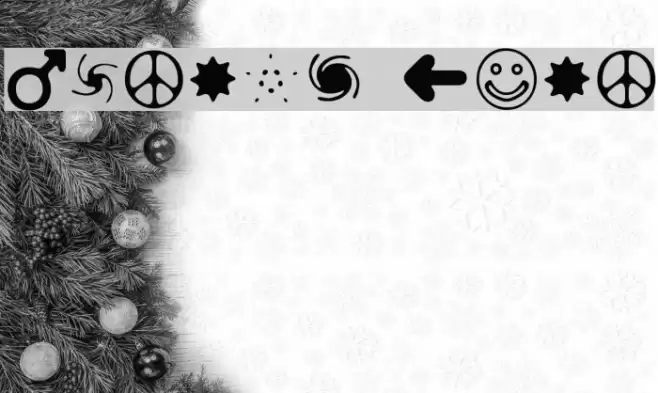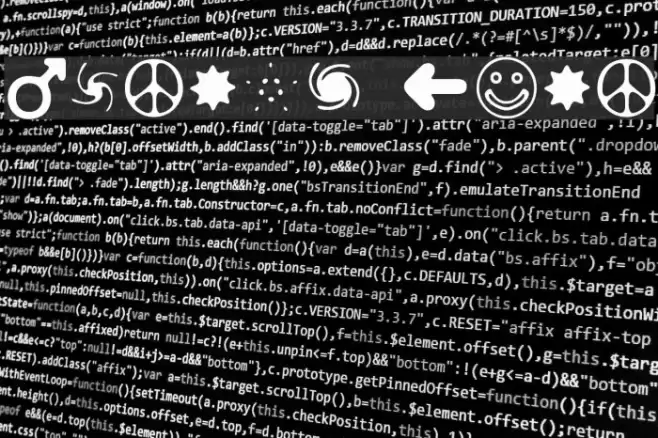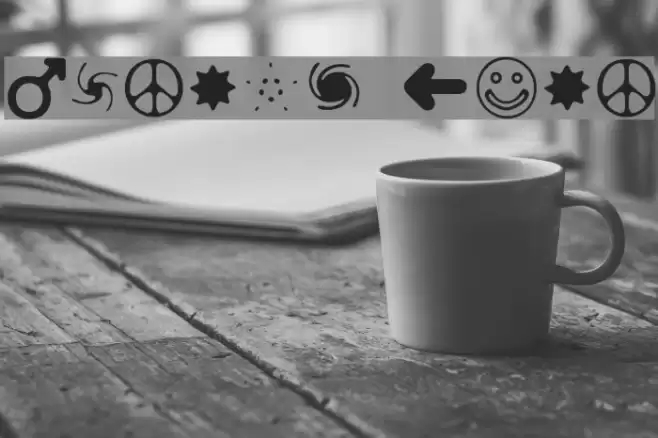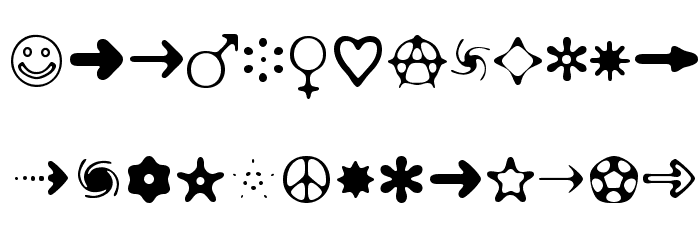
Distro Bats Font
Distro Bats Description
This font is a collection of playful and bold symbols, featuring a variety of shapes including arrows, gender symbols, hearts, peace signs, and stars. Each character is designed with a solid fill, creating a strong visual impact. The symbols are evenly spaced, maintaining a consistent and balanced appearance across the set. The style is whimsical and decorative, making it suitable for creative projects that require a unique and eye-catching element. The characters are well-defined and easily recognizable, offering a versatile range of uses.
A bold and playful collection of decorative symbols and shapes from Distorted Eroded fonts.
- Proposed Projects: Ideal for graphic design projects, posters, digital art, and any creative work that benefits from decorative symbols.
- Use Case: Logos, Posters, Digital Art